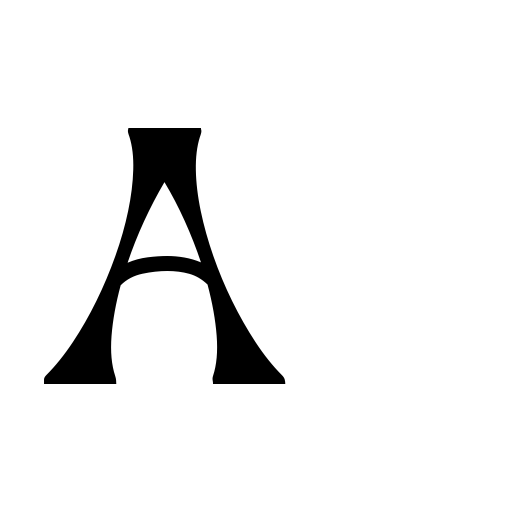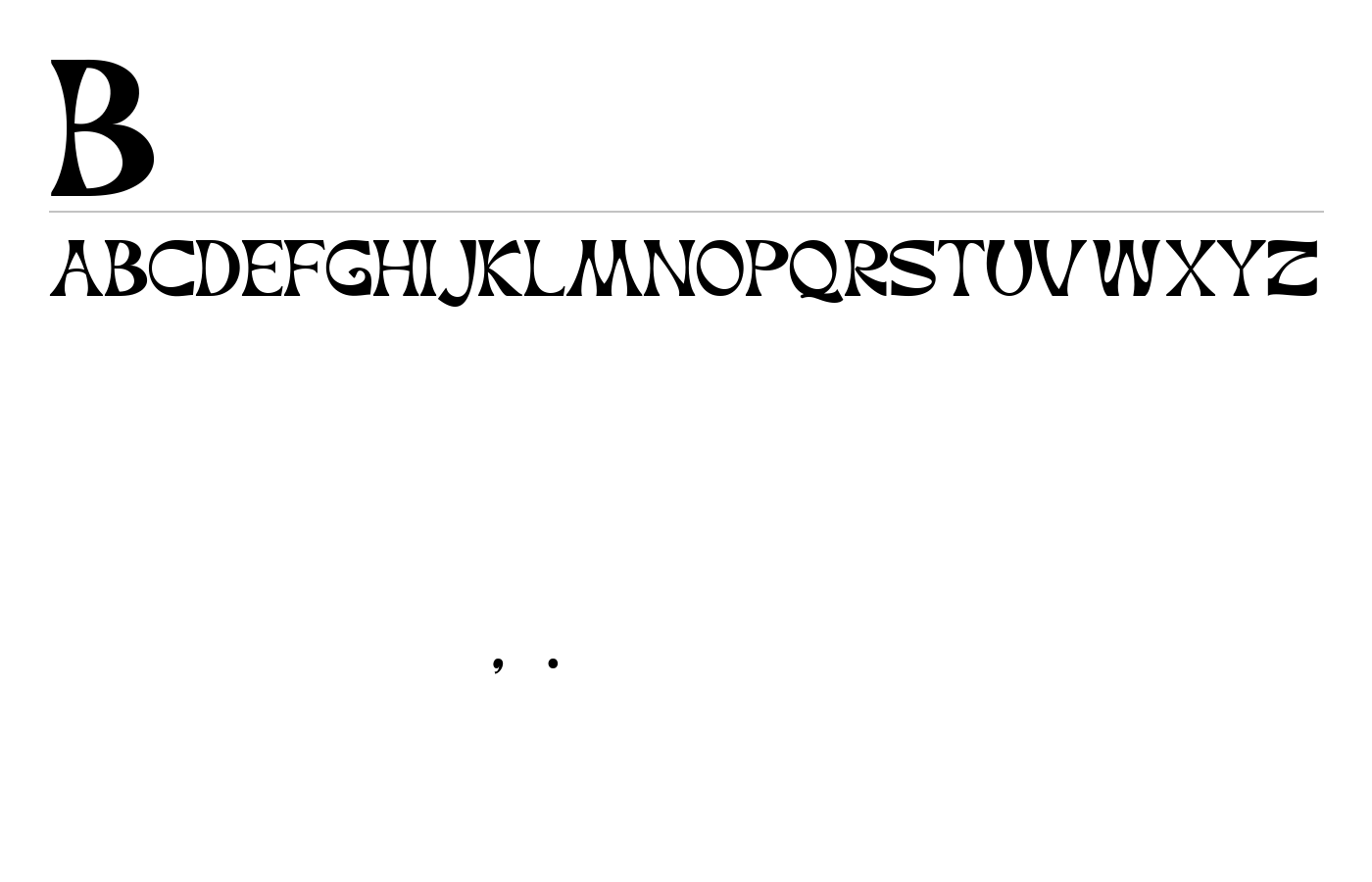
Broca is a distinctive serif font with a playful yet elegant personality, featuring high contrast strokes and uniquely shaped letterforms that combine sharp edges with flowing curves. Its medium weight and moderate x-height create a balanced, eye-catching style ideal for logos, headlines, and display use where a vintage, artistic, or sophisticated look is desired. This font works best in creative branding and editorial designs that seek to convey originality with a touch of classic charm.
Broca Font
About Broca Font